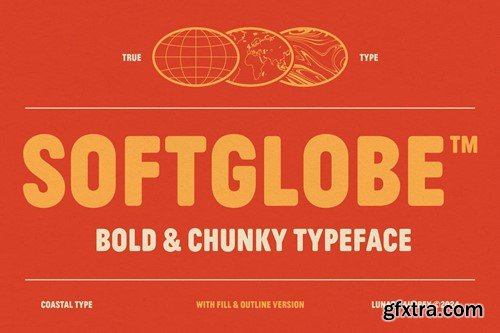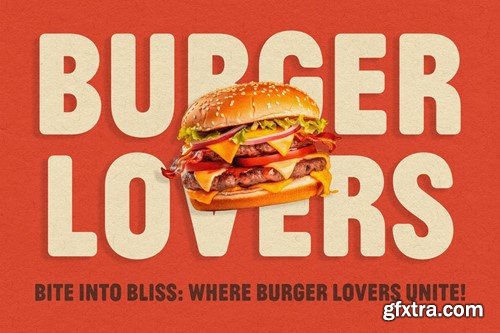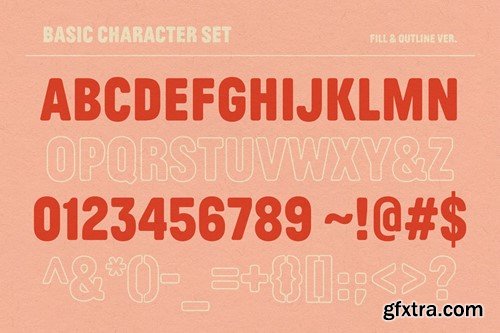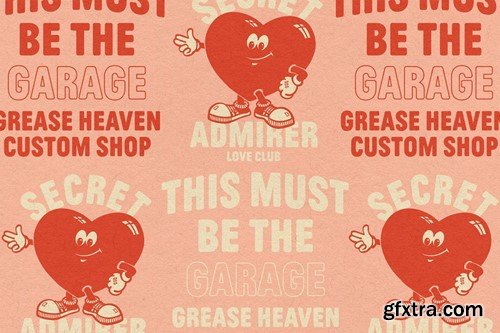
软 globe - 勇敢且粗犷的字体 ELNAETZ
Softglobe - Bold & Chunky Typeface ELNAETZ
Softglobe - Bold & Chunky Typeface
"Embrace playful journeys with our Softglobe typeface – igniting excitement in kids' apps, books, toys, packaging, movies, theme parks, and more!"
• Softglobe Fill
• Softglobe Outline
Features :
• Uppercase
• Lowercase
• Punctuation & Number